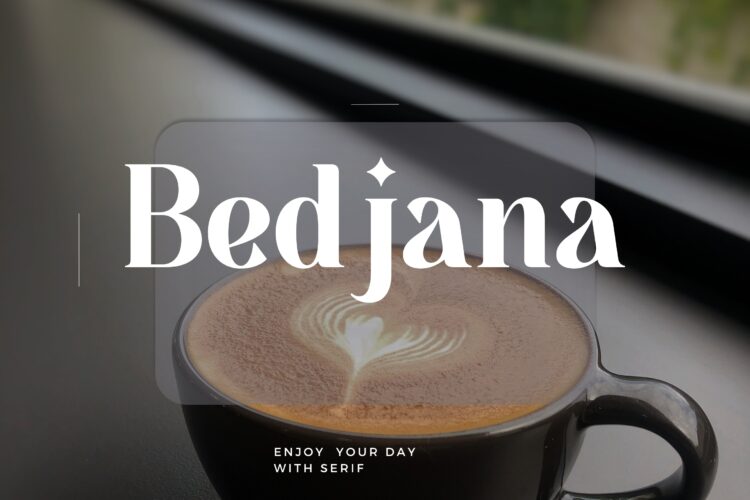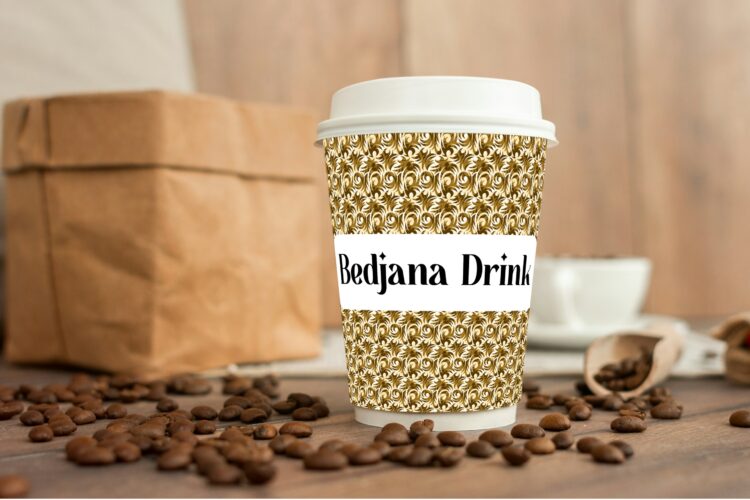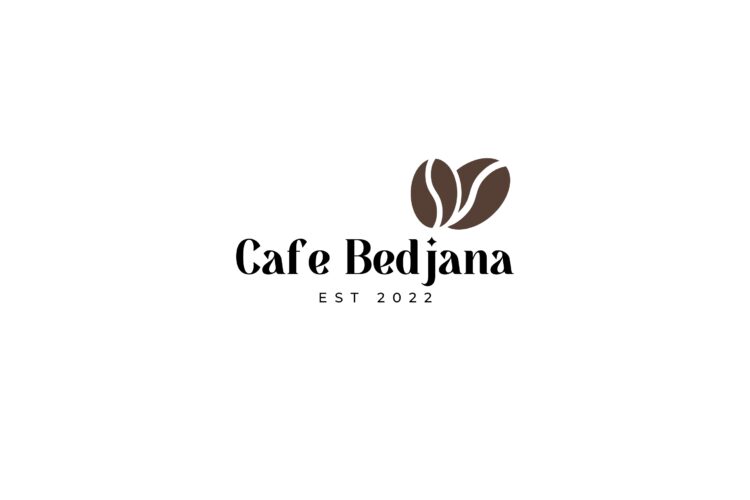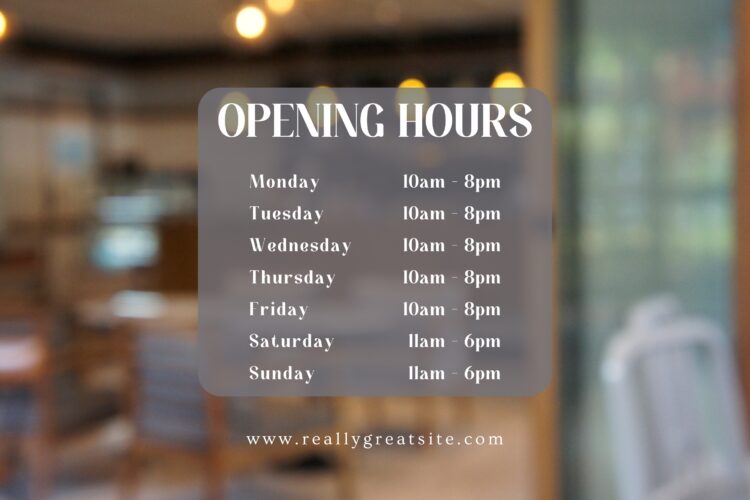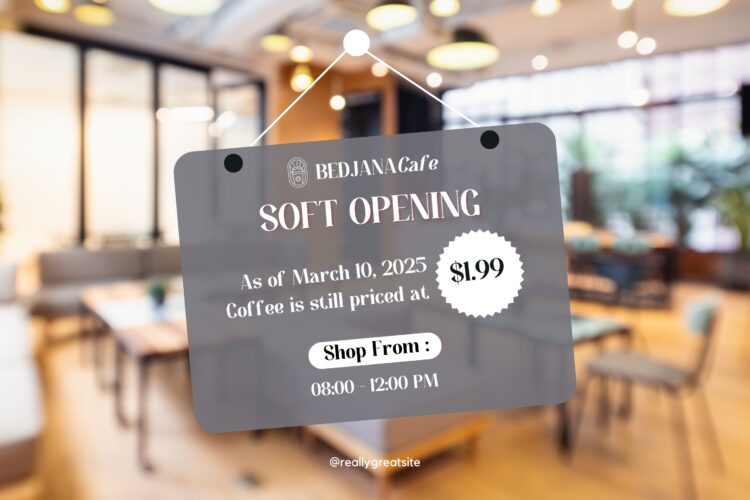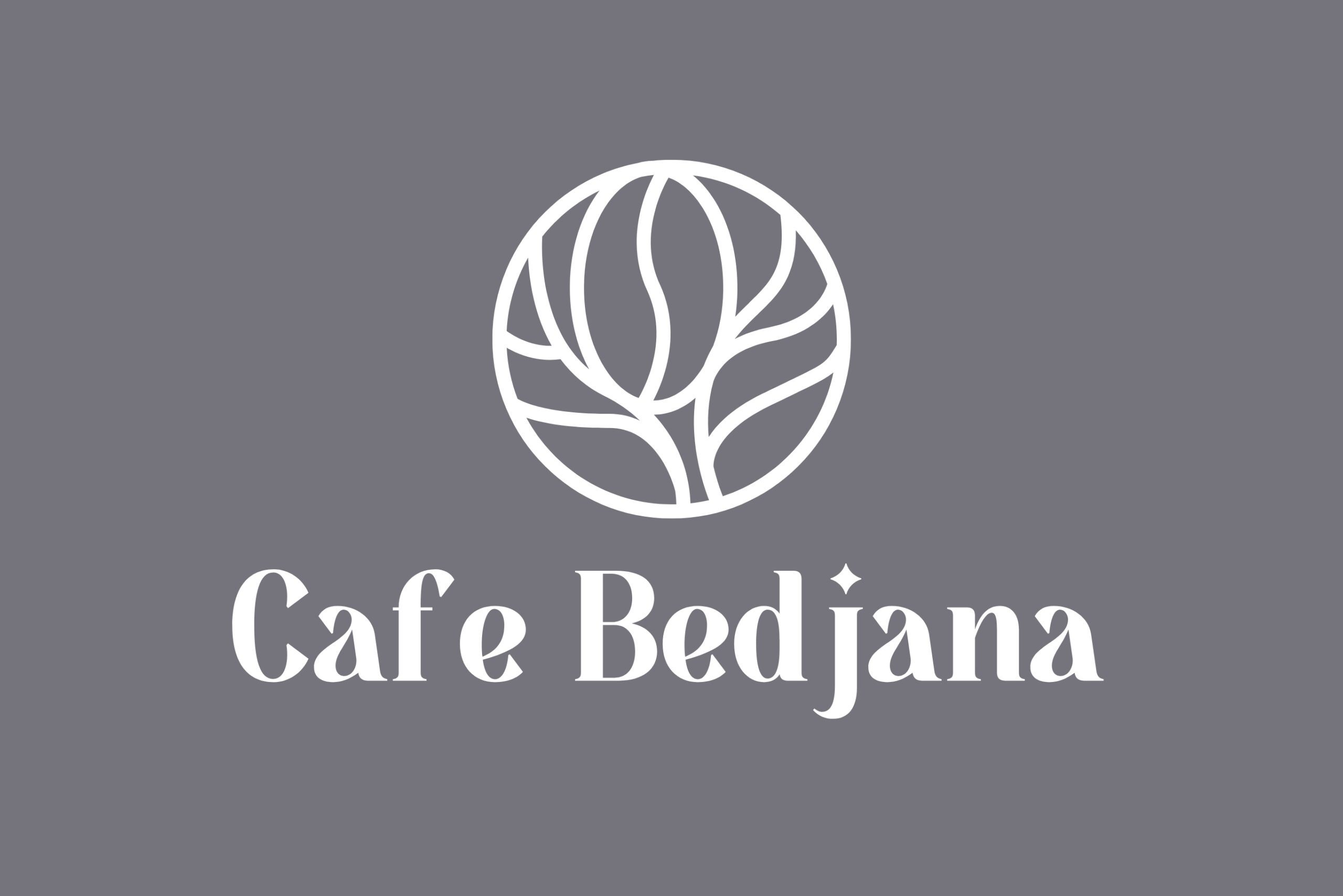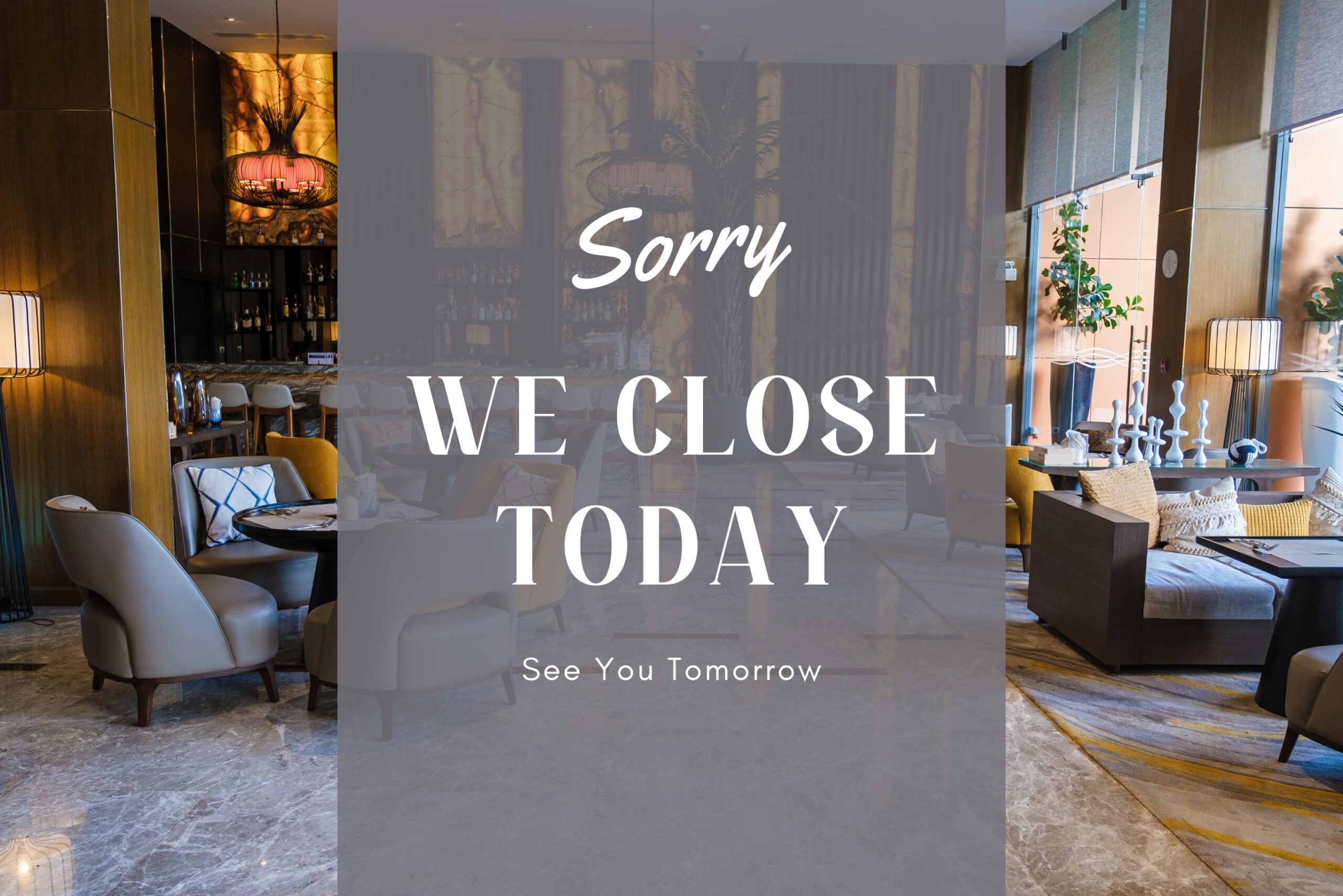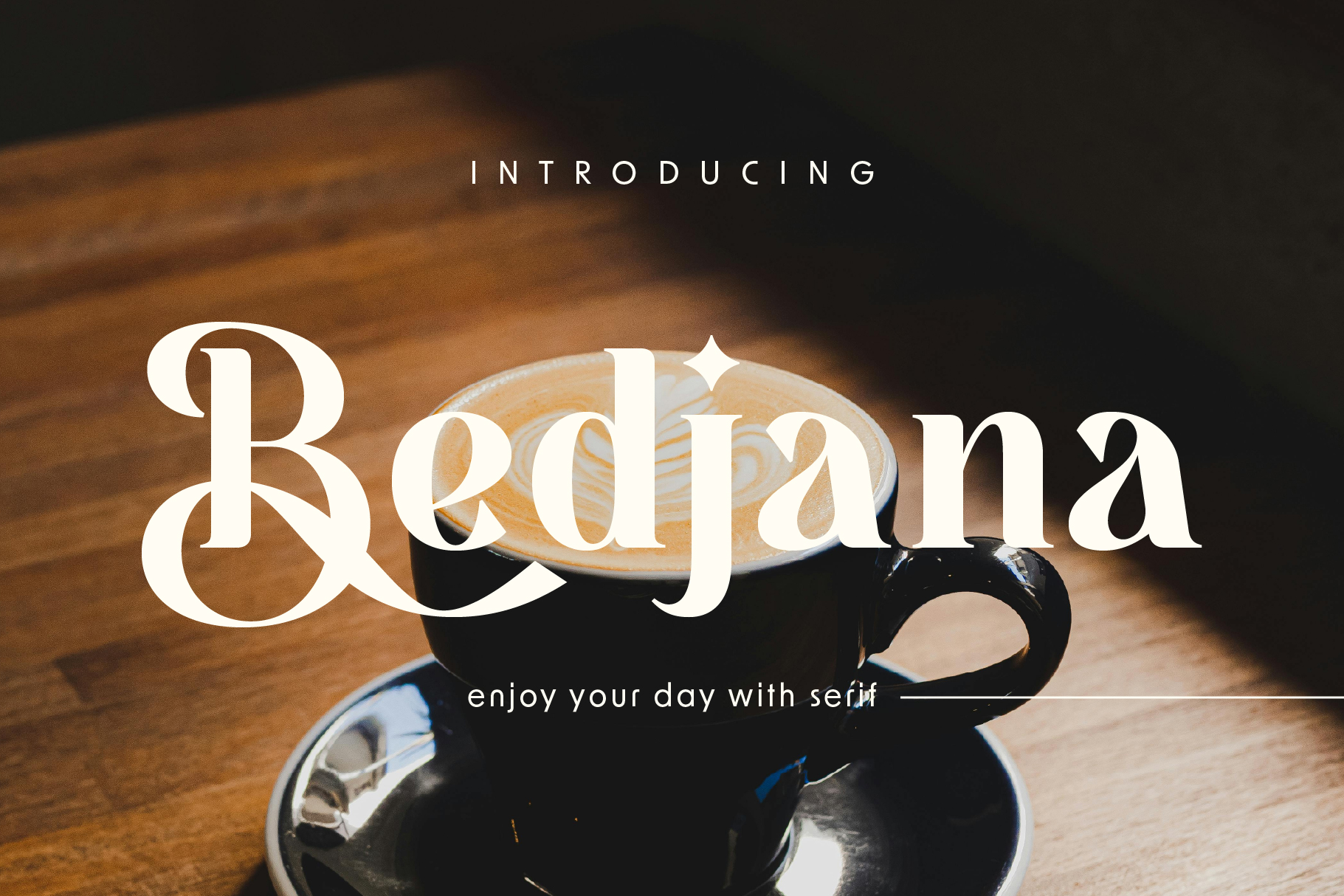
Introducing Bedjana — a display typeface that makes a statement without being too flashy. Its clean lines and balanced thickness ensure readability, making it an elegant and modern serif font. Perfect for logos, magazines, and more, Bedjana adds a touch of sophistication to your designs.
Additionally, Bedjana includes uppercase and lowercase letters, numbers, and basic punctuation. Moreover, it offers a matching italic version, providing versatility for emphasis and style. This font is a fun and stylish choice for various projects.